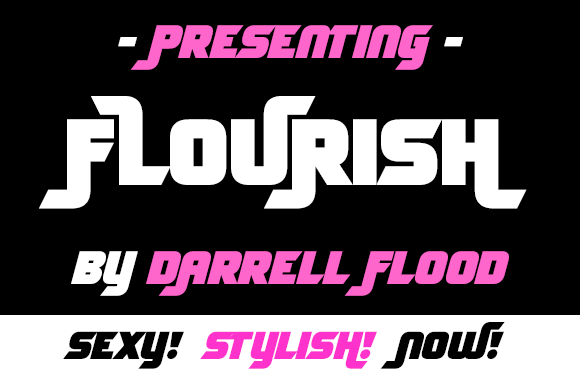
The Flourish Font: A Bold and Fun Display Font to Elevate Your Designs
An Honest Review of Flourish Font
What I Love About Flourish Font
- ✨ Bold and eye-catching: Flourish font is perfect for making a statement in your designs. Its bold and fun display style is sure to grab attention.
- ✅ Easy to use: Despite its bold style, Flourish font is surprisingly simple to use, even for those who are new to design.
- 🎨 Versatile: Whether you’re working on a craft project, a branding campaign, or a social media graphic, Flourish font can adapt to any style or theme.
While Flourish font is an excellent choice for many projects, there are a few things to keep in mind:
- 🤔 Legibility at small sizes: Like many bold fonts, Flourish can become a bit tricky to read at very small sizes. It’s best used at larger sizes where its bold style can shine.
- ⚠️ Overuse: Because Flourish font is so attention-grabbing, it’s easy to overuse it. Be sure to balance it with other fonts or design elements to keep your project looking fresh.
The Backstory of Flourish Font
Flourish font was designed with the goal of creating a bold yet simple display font that could be used across various craft and design projects. The designer aimed to create a font that was not only visually appealing but also highly versatile. Inspired by modern typography trends and a passion for creative design, Flourish font was born.
Q: What type of projects is Flourish font best suited for?
A: Flourish font is perfect for a wide range of projects, including craft designs, branding campaigns, social media graphics, and more. Its bold and fun style makes it ideal for making a statement.
Q: Does Flourish font support OpenType features?
A: Yes, Flourish font supports OpenType features, including stylistic alternates and ligatures. This allows you to customize your text and create unique designs.
Q: Is Flourish font easy to read?
A: While Flourish font is bold and eye-catching, it can become tricky to read at very small sizes. It’s best used at larger sizes where its bold style can shine.